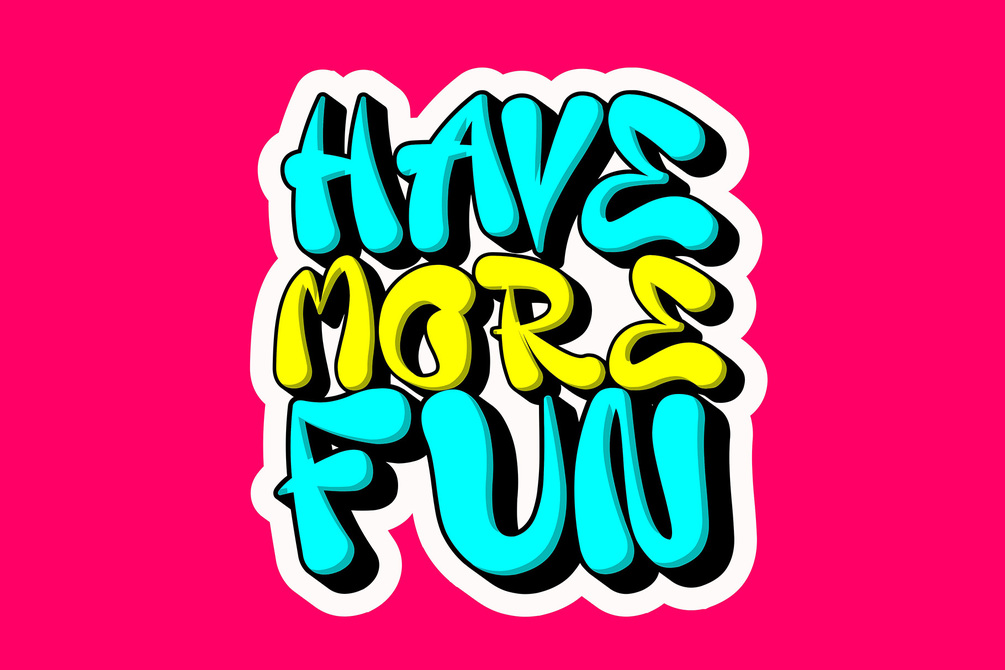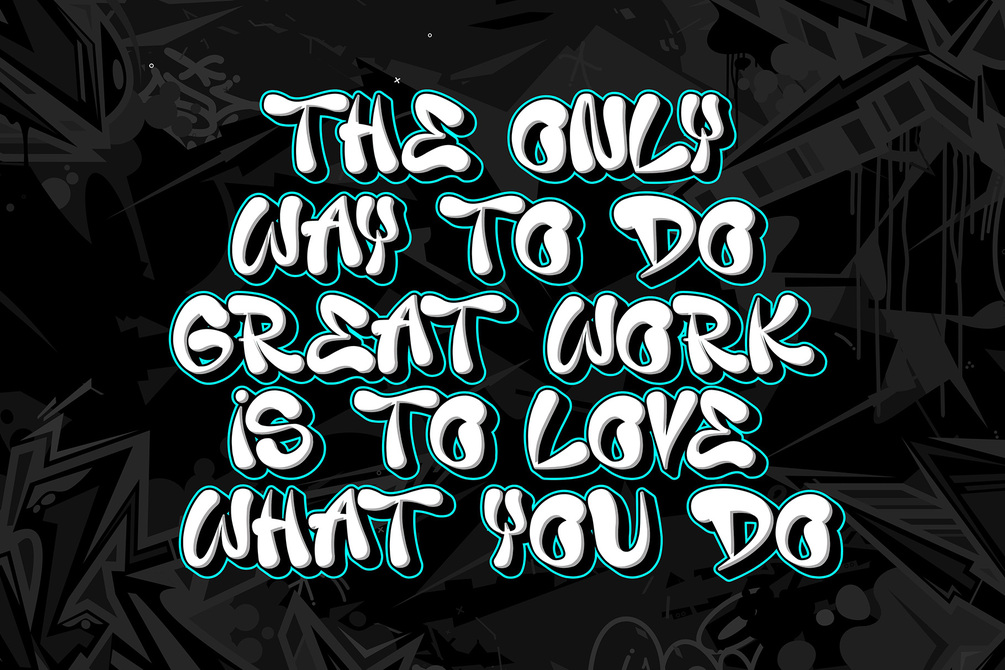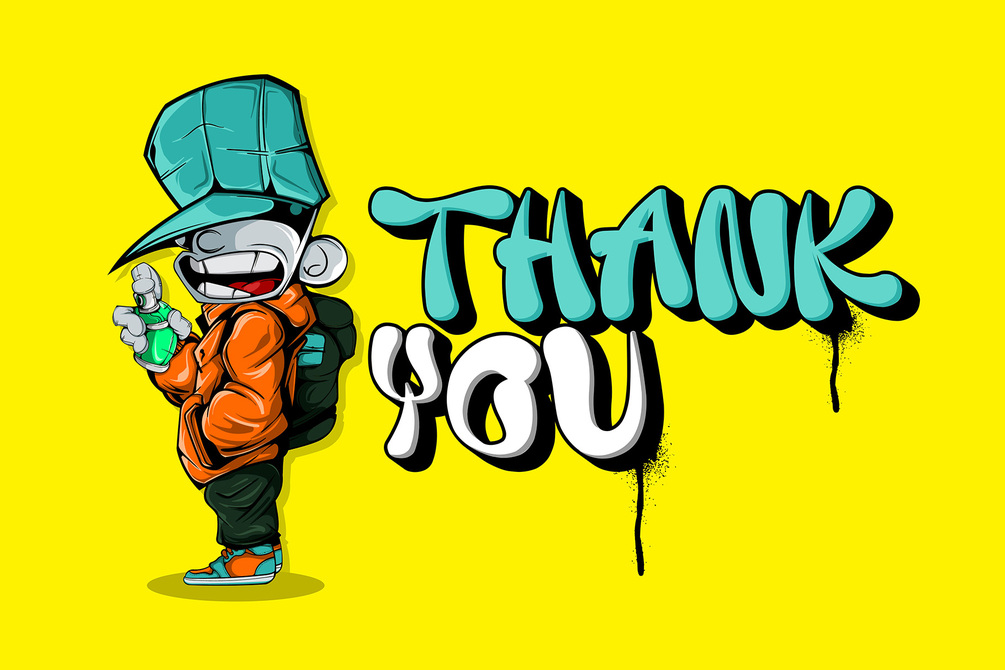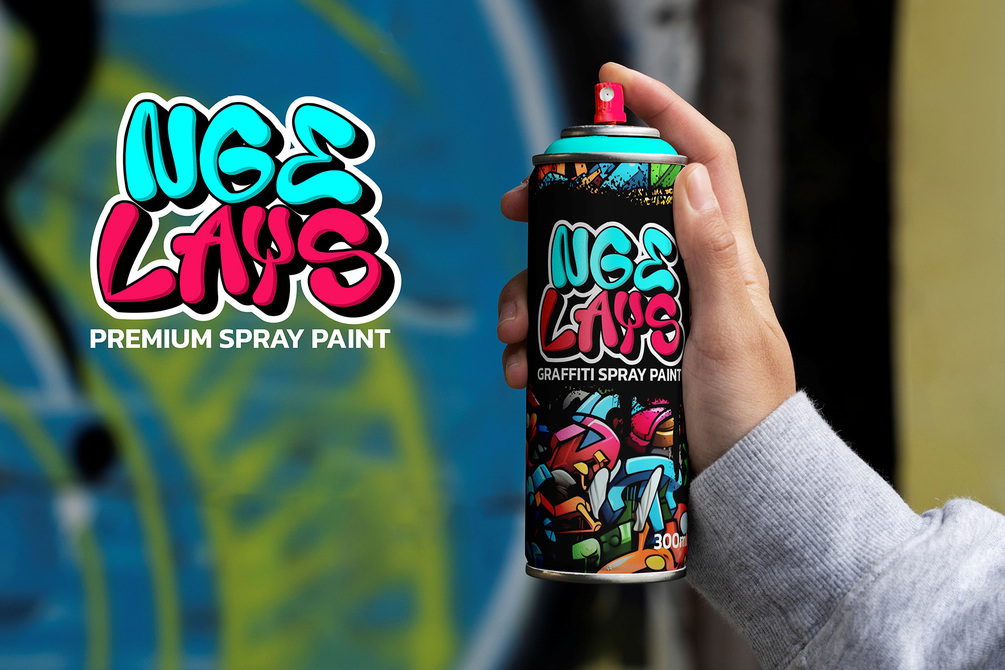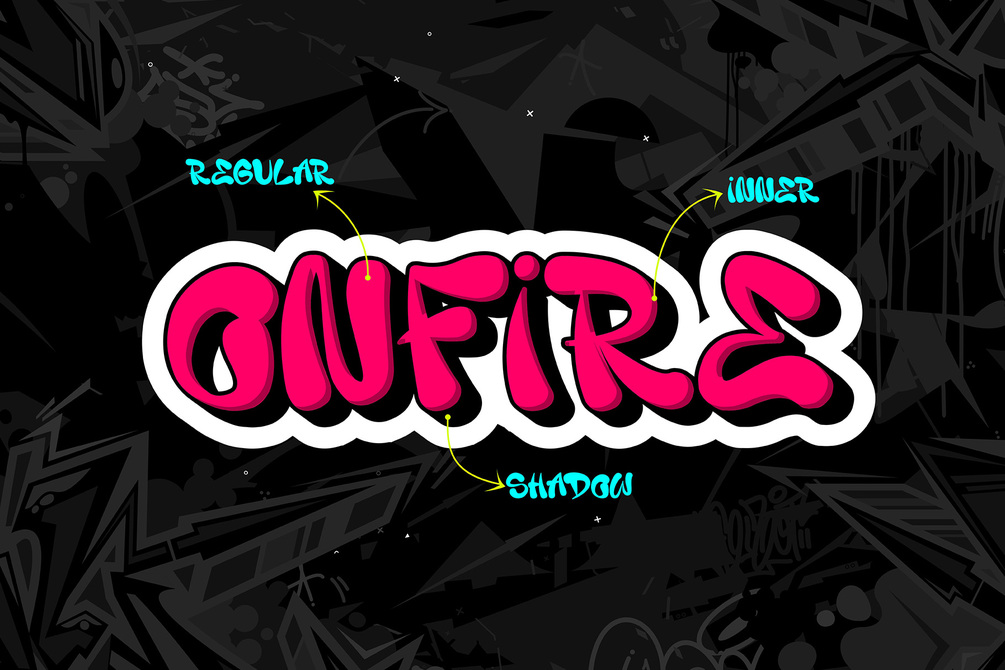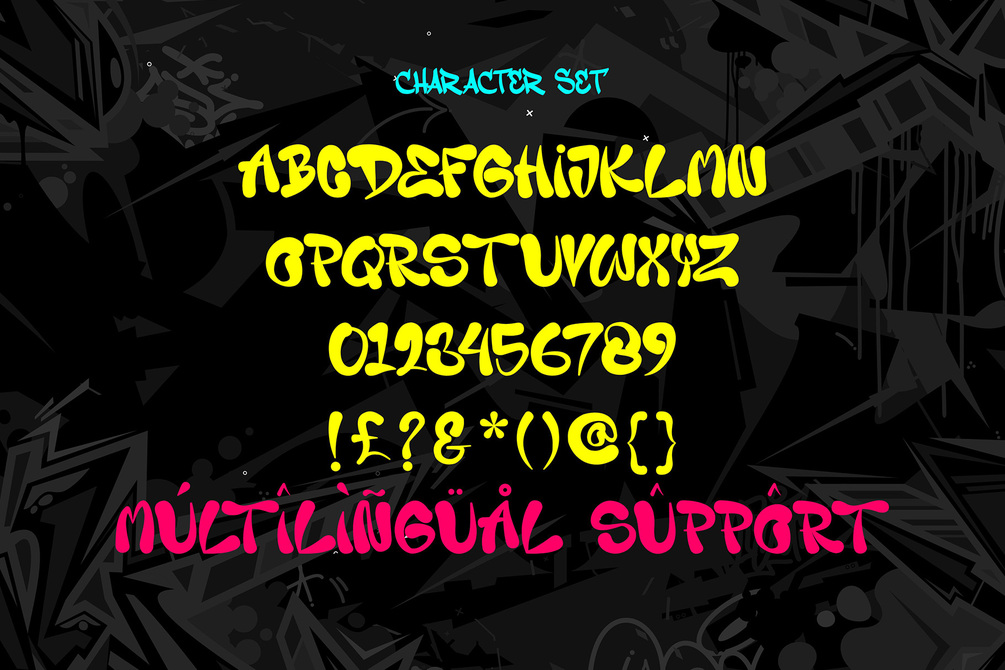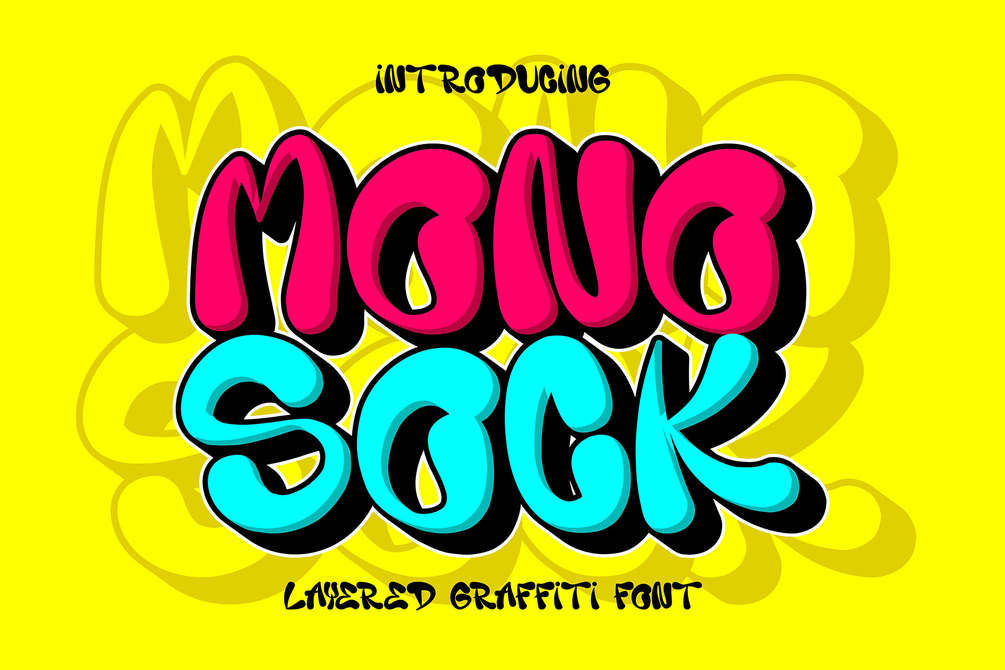
Monosock | Layered Graffiti Font
Monosock is a layered graffiti font featuring three distinct styles: solid, inner shadow, and shadow. This versatile font is perfect for adding depth and dimension to your designs, making them pop with a dynamic 3D effect. Ideal for street and urban-themed projects, Monosock brings a bold, edgy aesthetic to posters, apparel, branding, and more. Its multiple layers provide creative flexibility, allowing you to mix and match styles to achieve the perfect look for your artwork.
- Inluded Stylistic Alternates
- Versatile for branding, headline, or printing product